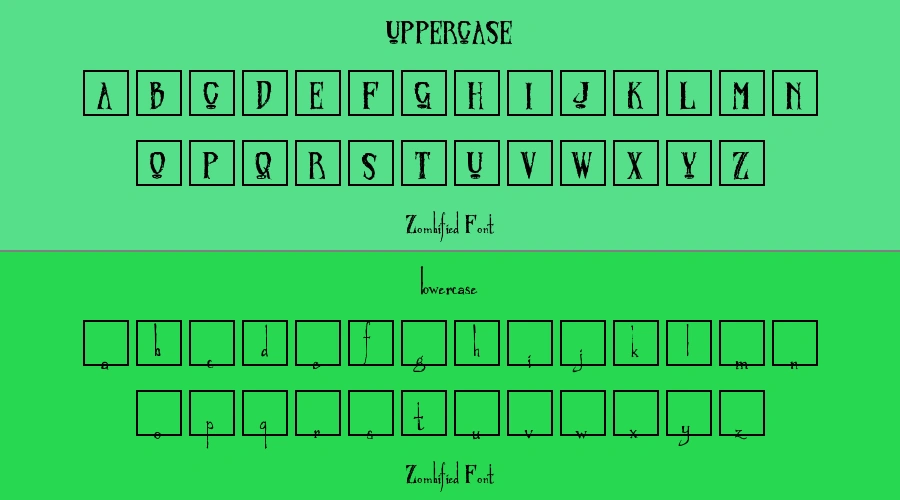
About Zombified Font
Zombified Font embodies typographic excellence through its masterful combination of flowing forms and creative expression. Created for annual reports, this typeface delivers exceptional functionality and technical merit across all applications. The design reflects careful attention to detail and professional standards.
Advanced capabilities include distinctive measured spacing and versatile numerator/denominator, giving designers creative control. When used in retail environments, Zombified Font exhibits remarkable distance readability. The harmonious balance between counter size and technical authority sets this typeface apart.